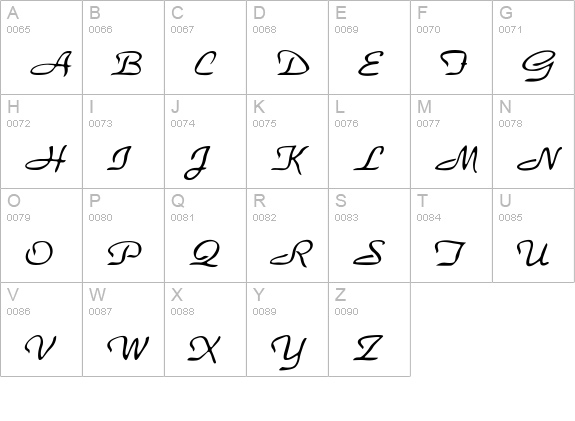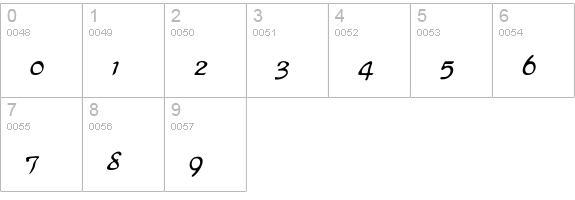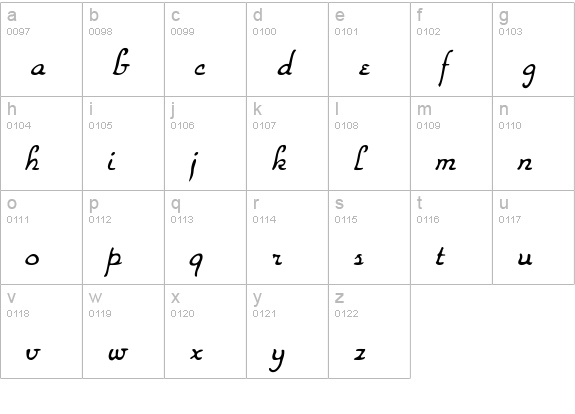
HavenPark Font Details
Introducing HavenPark, a stunning font that brings a touch of elegance and sophistication to any design project. With its graceful curves and clean lines, HavenPark adds a sense of modernity and charm to your typography. This versatile font is perfect for a wide range of applications, from branding and advertising to stationery and web design. Its timeless appeal ensures that your message will be conveyed with utmost clarity and style. But what truly sets HavenPark apart is its accessibility. It is freely available to download at FontsMarket.com, making it a fantastic choice for both personal and commercial use. Whether you're a professional designer or a DIY enthusiast, HavenPark empowers you to bring your vision to life without any constraints. With its wide range of weights and styles, HavenPark offers endless possibilities for creative expression. From delicate thin lines to bold and impactful statements, this font allows you to tailor your typography to suit your unique needs. Its legibility and readability are unparalleled, ensuring that your message will be heard loud and clear. So why wait? Experience the beauty and versatility of HavenPark today by downloading it for free at FontsMarket.com. Let this font become your go-to choice for all your design projects, and watch as your creations come to life with a touch of sophistication and elegance. HavenPark is here to elevate your typography game and make your designs truly shine.